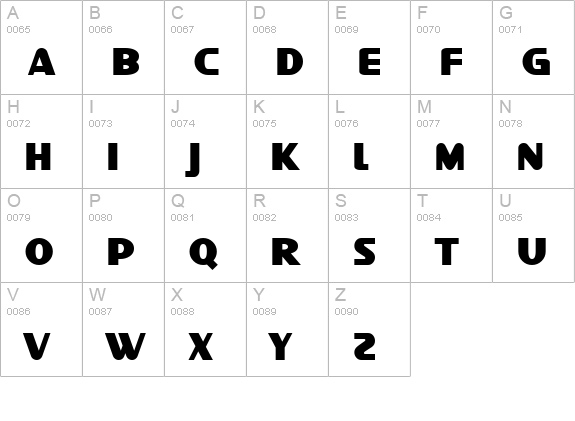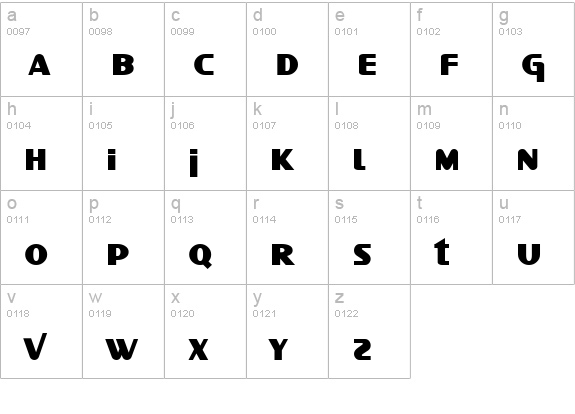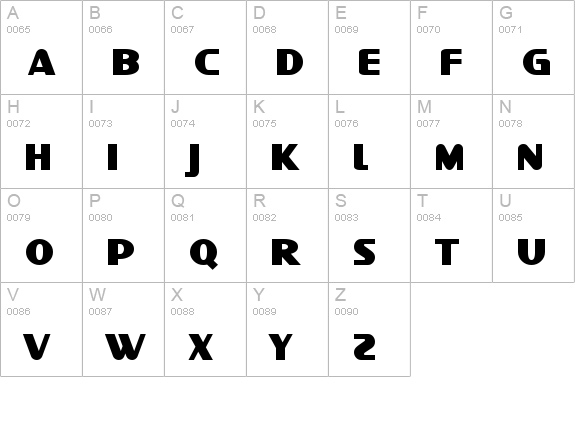
SF Intellivised Bold is a strong, high-contrast variant in the SF typeface family \xE2\x80\x94 well suited to headlines, attention-grabbing titles, and strong calls-to-action.
Introducing SF Intellivised Bold, a cutting-edge font that exudes modernity and sophistication. With its sleek lines and bold presence, this font is perfect for making a bold statement in any design project. Whether you're working on a logo, website, or print materials, SF Intellivised Bold will elevate your design to the next level. Designed with attention to detail, SF Intellivised Bold offers a seamless combination of elegance and readability. Its clean and crisp letterforms ensure that your message is conveyed with clarity and impact. Each character is meticulously crafted to create a harmonious visual experience, making this font a true standout in any design composition. One of the unique aspects of SF Intellivised Bold is that it is freely available to download at FontsMarket.com. This means that you can easily access this remarkable font without any cost, allowing you to enhance your creative projects without breaking the bank. Whether you're a professional designer or just starting out, SF Intellivised Bold offers a valuable resource that is both visually striking and cost-effective. The versatility of SF Intellivised Bold is another key feature that sets it apart. From headlines and titles to body text and captions, this font seamlessly adapts to any typographic need. Its bold weight commands attention and adds a touch of sophistication to any design, while its carefully crafted curves and angles ensure legibility in any size or format. SF Intellivised Bold is the perfect choice for those who are looking to make a lasting impression with their designs. Its bold and contemporary aesthetic captivates the eye, leaving a memorable impact on the viewer. Whether it's for commercial or personal use, this font is certain to elevate your projects to new heights. So why wait? Download SF Intellivised Bold for free at FontsMarket.com and unlock the potential of this exceptional font. Experience the seamless blend of style and functionality, and discover the possibilities that await you. Elevate your designs, captivate your audience, and make your mark with SF Intellivised Bold.